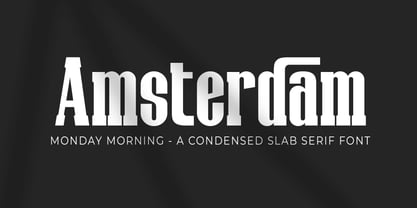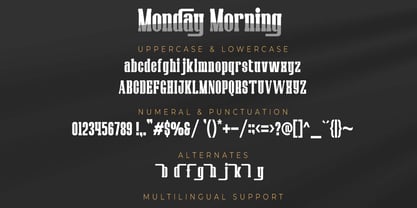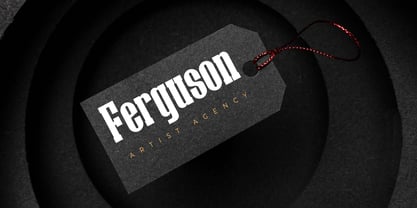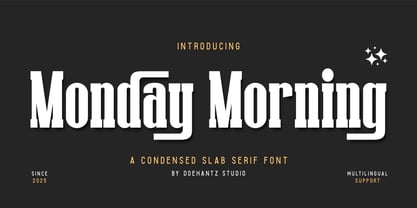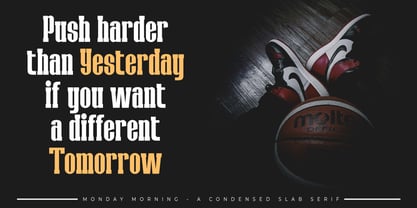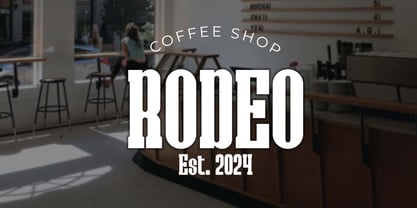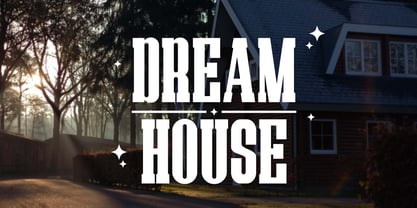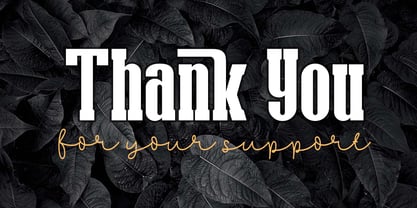
Monday Morning
von Doehantz Studio
Die Schriftfamilie Monday Morning wurde von Abduhan Fikhri entworfen und von Doehantz Studio veröffentlicht. Monday Morning enthält 1 Stile. Mehr über diese Familie
Introducing our brand new font, Monday Morning, this is A Condensed Slab Serif Font designed by Doehantz Studio.
Monday Morning has made for any professional project branding, such as branding, poster, logotype, promotions, product packaging, etc.
Monday Morning includes uppercase and lowercase, numerals and punctuation, alternates, and multilingual support. This font has a elegance style.
Designer: Abduhan Fikhri
Foundry: Doehantz Studio